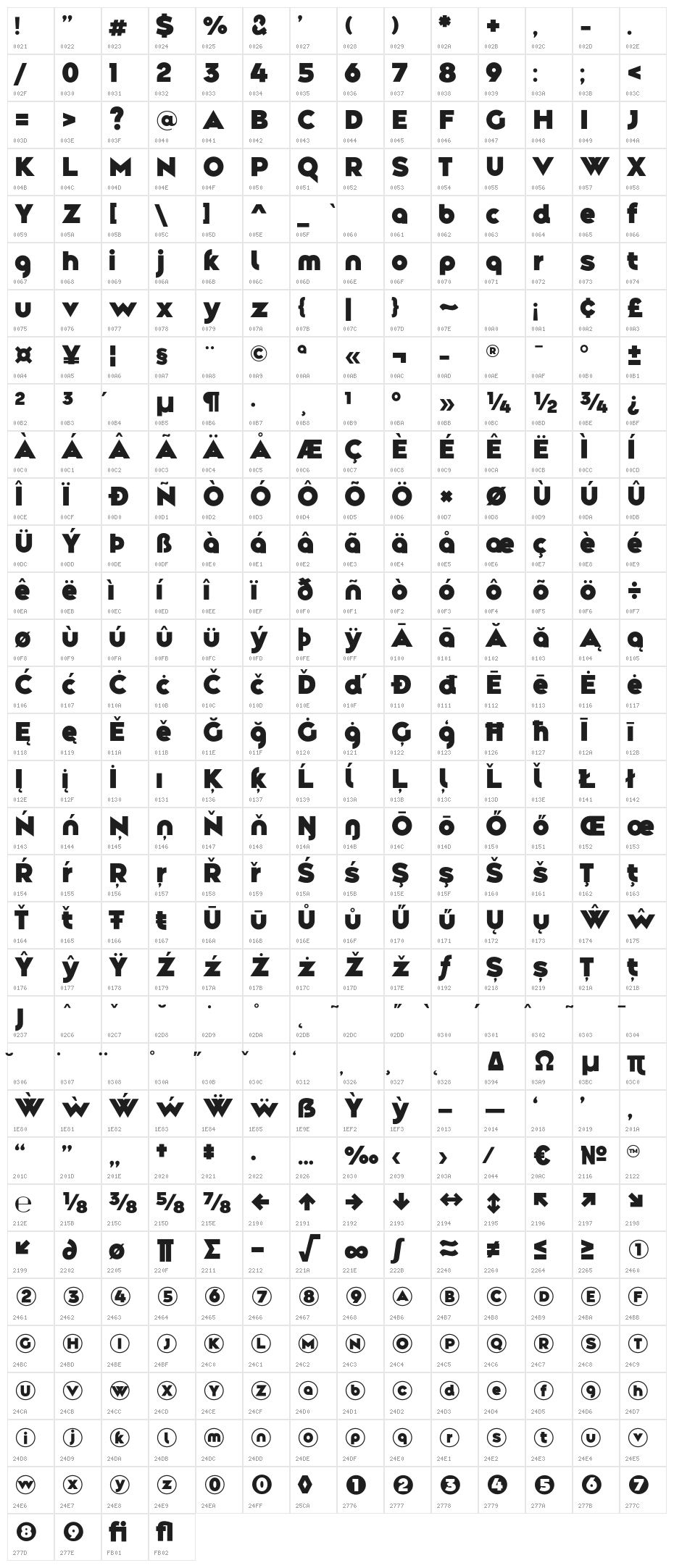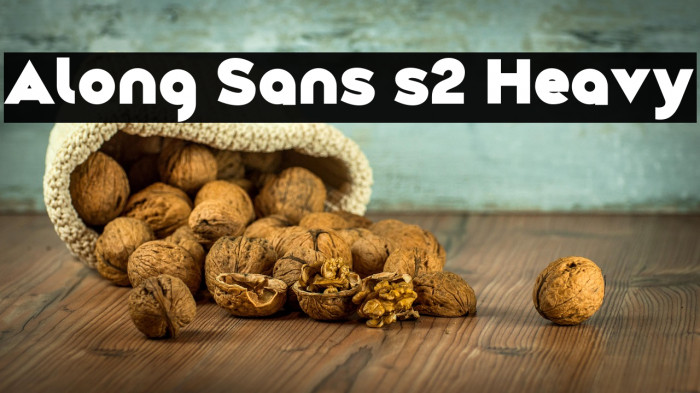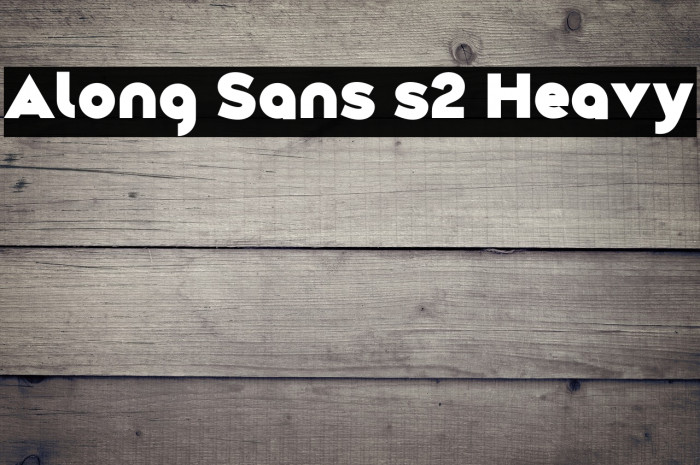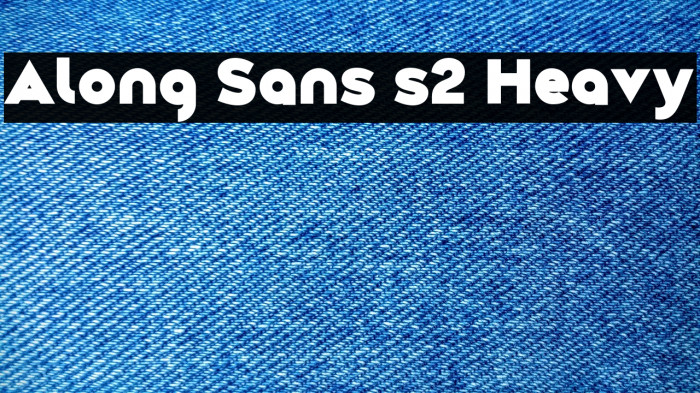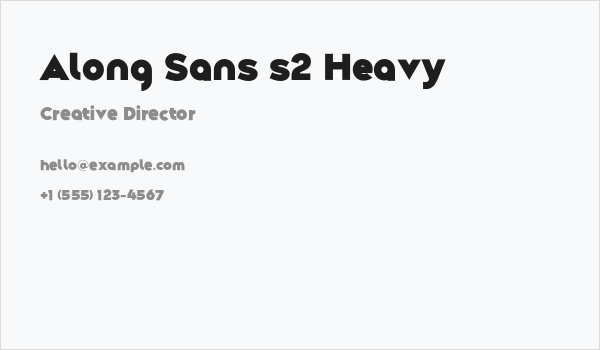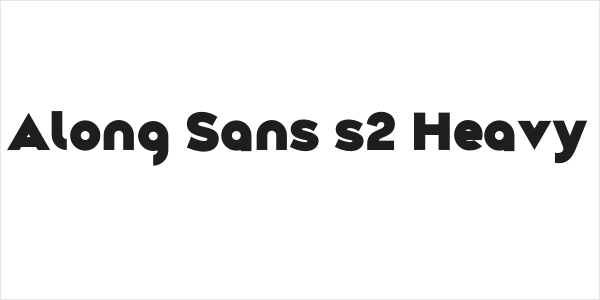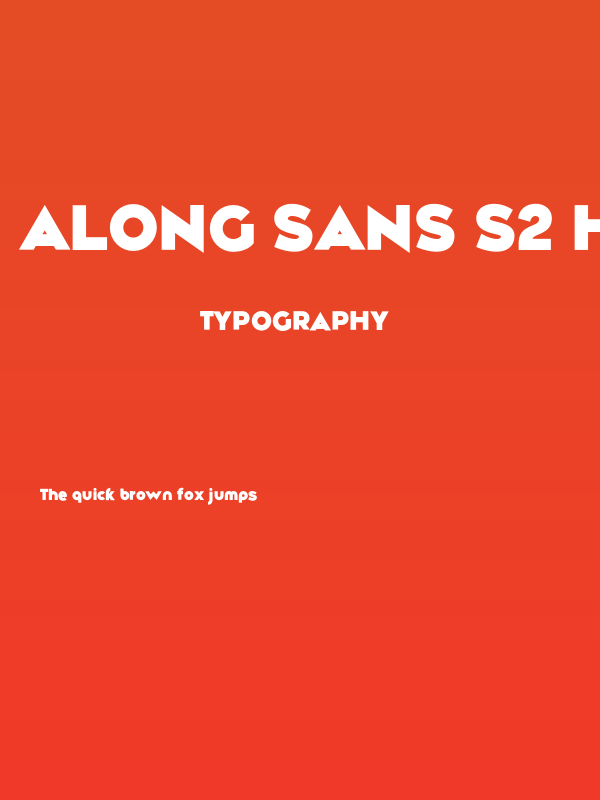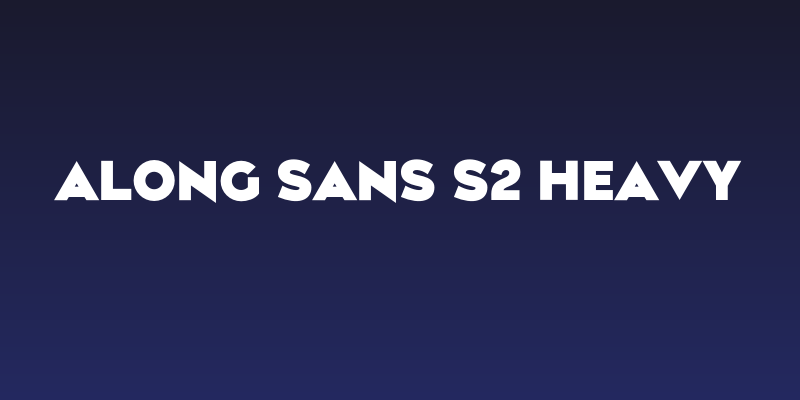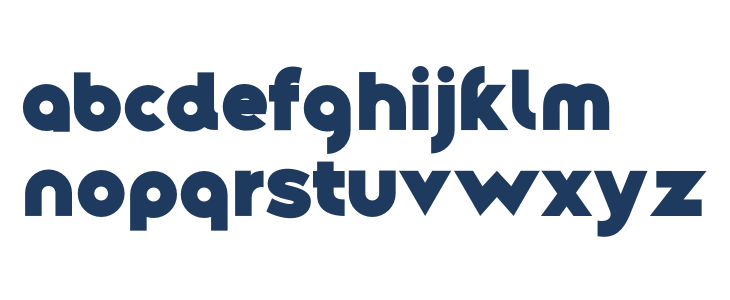
Along Sans s2 Heavy Font
Along Sans s2 Heavy Description
This font features a bold and striking design with a modern sans-serif style. The characters are heavy and geometric, with sharp angles and clean lines that convey a sense of strength and stability. The uppercase letters are particularly bold, while the lowercase letters maintain a consistent weight, offering a harmonious balance. The numerals are equally robust, ensuring they stand out in any context. Special characters are designed with the same boldness, making them perfect for attention-grabbing headlines or impactful logos.